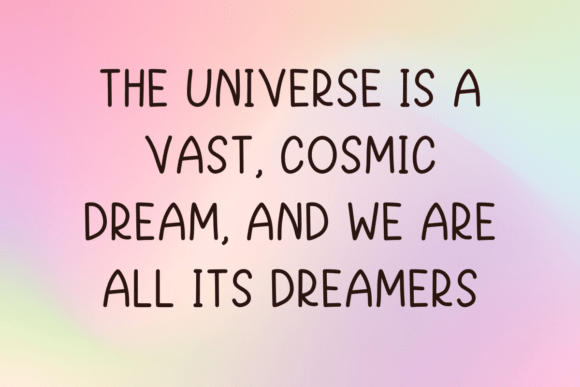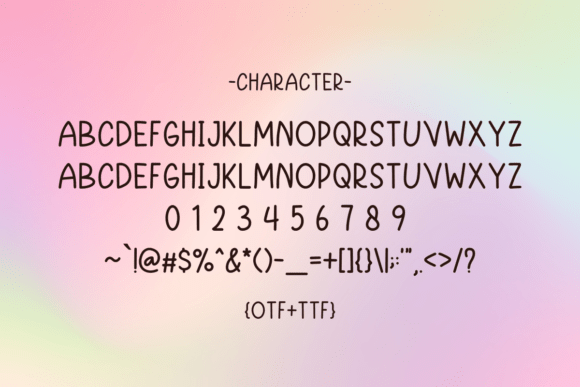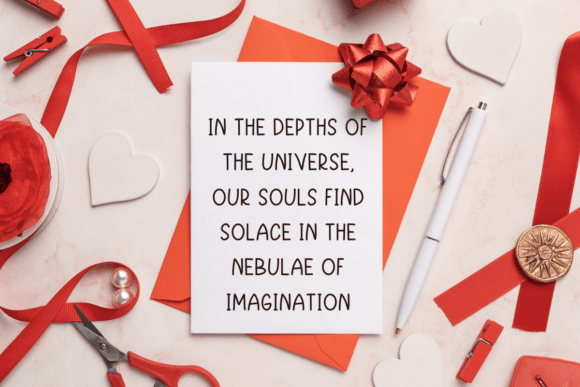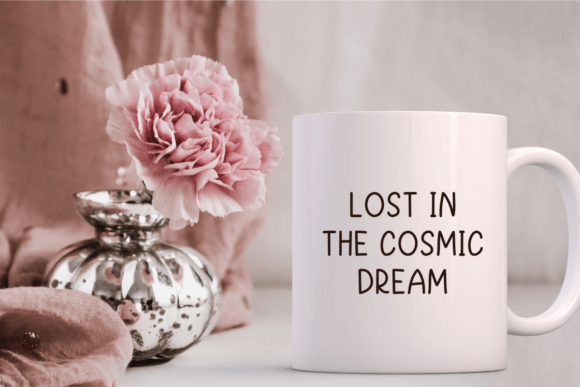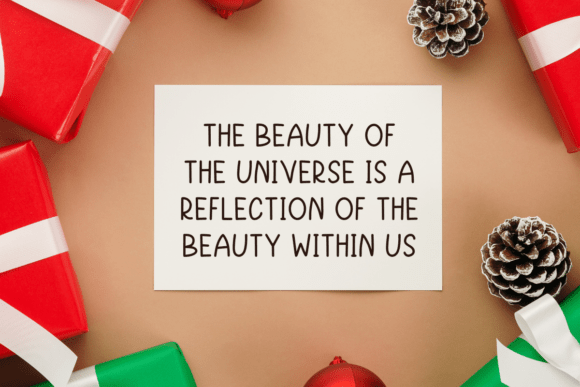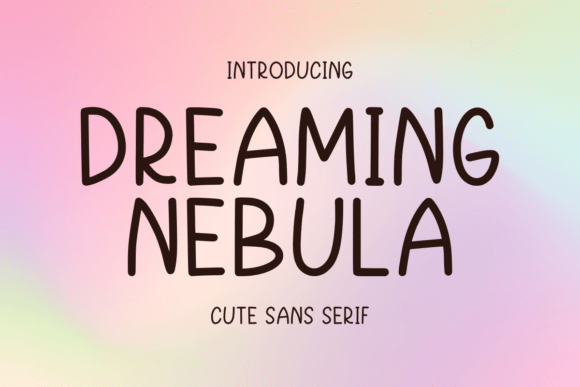
Dreaming Nebula Font: The Perfect Playful Companion for Crafters and Designers
Are you a crafter, designer, or maker looking for a font that can add a touch of playfulness and friendliness to your projects? Look no further than the Dreaming Nebula Font! This delightful font is perfect for a wide range of creative endeavors, from crafts and planners to KDP, stickers, greeting cards, and more.
What Makes Dreaming Nebula Font So Special?
Dreaming Nebula Font is a unique and charming typeface that is sure to capture the hearts of crafters, designers, and makers alike. Its cute and friendly style makes it an ideal choice for anyone looking to add a personal touch to their projects. Whether you’re creating DIY crafts, designing custom stickers, or working on a KDP project, this font is sure to bring a smile to your face and a touch of whimsy to your designs.
Perfect for Cricut, Sublimation, and Creative DIY Projects
One of the best things about Dreaming Nebula Font is its versatility. It’s perfect for use with Cricut machines, making it a great choice for crafters who love to cut and create. It’s also ideal for sublimation projects, allowing you to create beautiful and vibrant designs that will make your products stand out. And, of course, it’s perfect for a wide range of creative DIY projects, from handmade cards to customized planners.
Ideal for Crafters, Designers, and Makers!
Dreaming Nebula Font is specifically designed with crafters, designers, and makers in mind. Its playful and friendly style makes it perfect for anyone who loves to create and make things. Whether you’re a seasoned designer or a DIY newbie, this font is sure to inspire your creativity and help you bring your ideas to life.
Use Dreaming Nebula Font for:
- Crafts: Add a touch of playfulness to your handmade crafts, from cards to gift tags.
- Planners: Create custom planners and journals that are both functional and fun.
- KDP: Use Dreaming Nebula Font to create eye-catching book covers and interior designs.
- Stickers: Design custom stickers that are perfect for decorating laptops, water bottles, and more.
- Greeting Cards: Create one-of-a-kind greeting cards that are sure to delight.
Why Choose Dreaming Nebula Font?
So why choose Dreaming Nebula Font over other fonts? Here are just a few reasons why this font stands out:
- Unique and playful style
- Cute and friendly design
- Perfect for Cricut, sublimation, and DIY projects
- Ideal for crafters, designers, and makers
- Easy to use and versatile
Get Creative with Dreaming Nebula Font!
If you’re looking for a font that can add a touch of playfulness and friendliness to your projects, look no further than Dreaming Nebula Font. With its unique and charming style, this font is sure to inspire your creativity and help you bring your ideas to life. So why wait? Download Dreaming Nebula Font today and start creating!
In conclusion, Dreaming Nebula Font is a must-have for any crafter, designer, or maker looking to add a touch of whimsy and fun to their projects. Its playful and friendly style makes it perfect for a wide range of creative endeavors, from crafts and planners to KDP, stickers, and greeting cards. So don’t miss out on this amazing font – get your copy of Dreaming Nebula Font today and start creating!